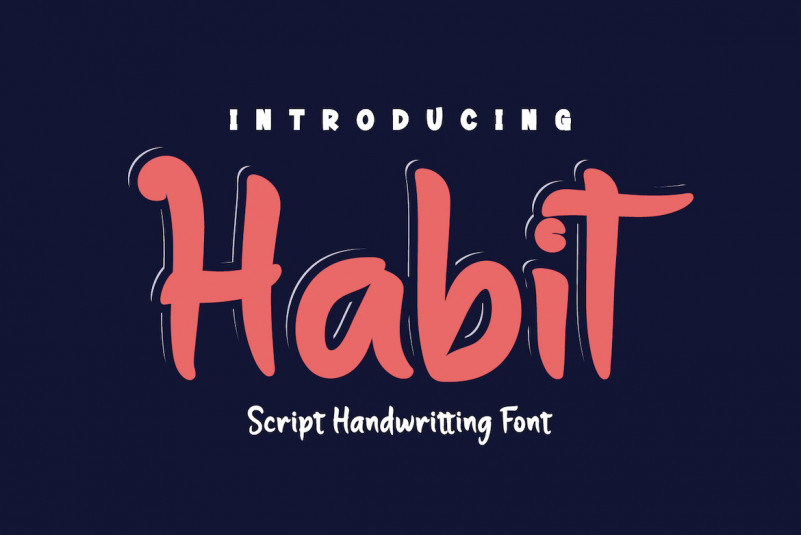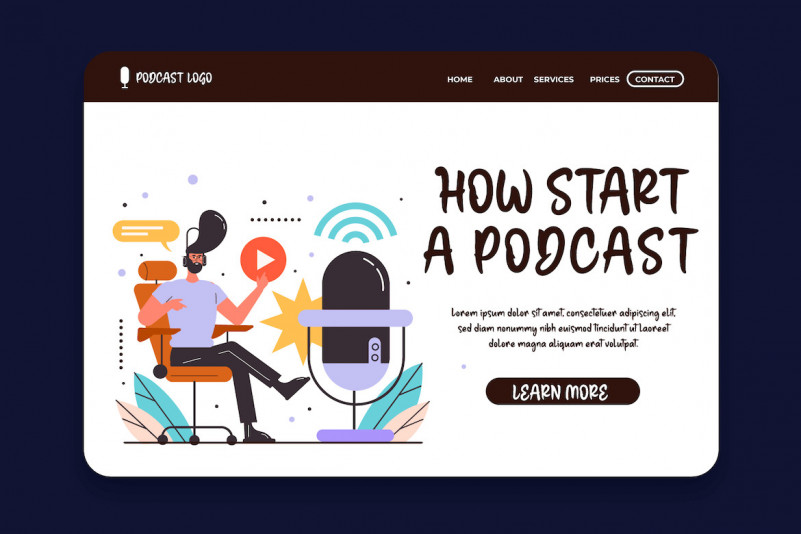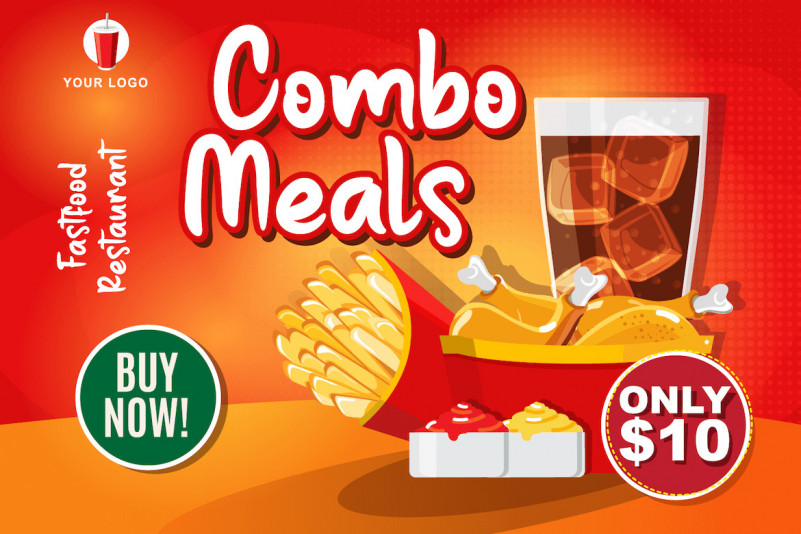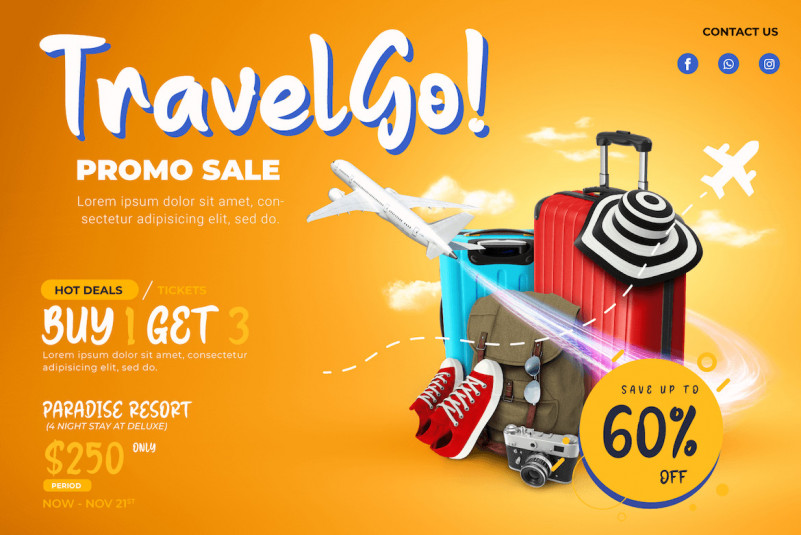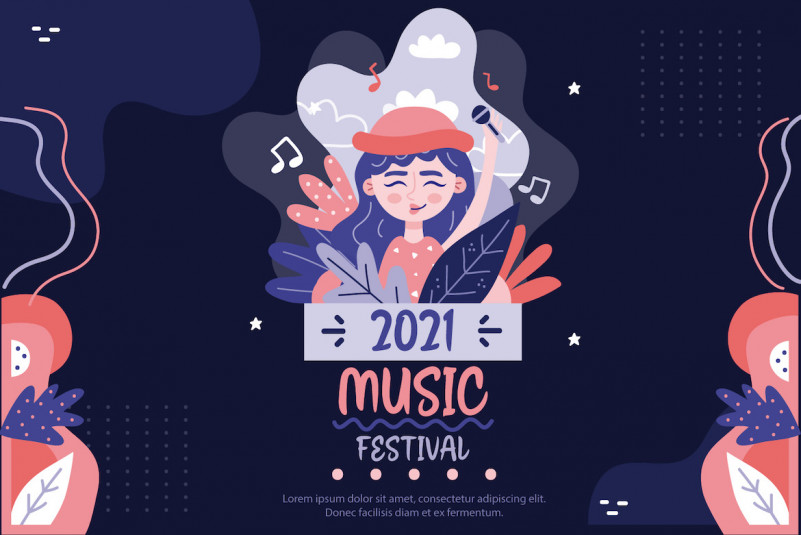
Habit Font
Habit Display Font
This a font designed using a touch of a hand that is relaxed, yet beautiful and elegant, this font looks beautiful to use in the text and title of your extraordinary design project.
Habit Display Font is handwritten. This font has an original and extraordinary design. This font is perfect for strong text with displays for a wide variety of branding, advertisements, posters, banners, packaging, podcasts, outdoor activities, clothing, quotes, drinks, and more.